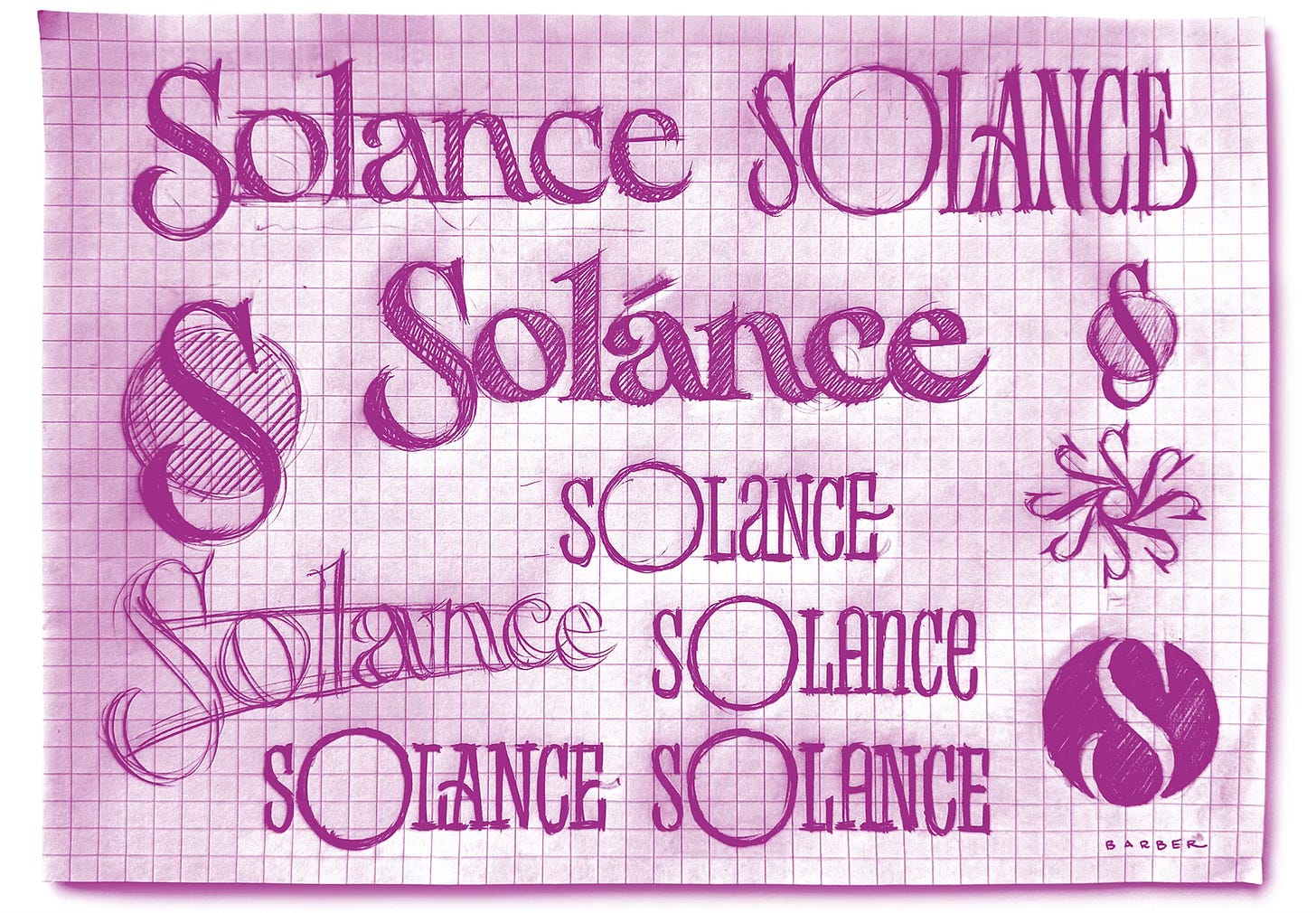
Show Less. Sell More.
How unfinished ideas lead to stronger brand identities
There’s a certain power in a sketch. It's alive and full of possibility. Most importantly, a rough drawing invites clients into the design process instead of presenting them with something that looks set in stone. Paul Arden, famed art director and author, famously said, “Rough layouts sell the idea better than polished ones.” Although he was talking about advertising, the lesson equally applies to lettering. A prematurely refined piece can feel final, while a loose sketch leaves room for conversation and collaboration.
Wisdom from Arden’s, It’s Not How Good You Are, It’s How Good You Want to Be
I learned that lesson the hard way during my first internship. I had carefully developed a concept in Illustrator and presented it to my boss. He loved it…then told me to quickly trace the printout in pencil before showing the client. I was confused at the time, but the message stuck with me: keep the dialogue open long enough to let the idea grow.
Every strong hand-lettered logo and brand identity begins with a rough idea